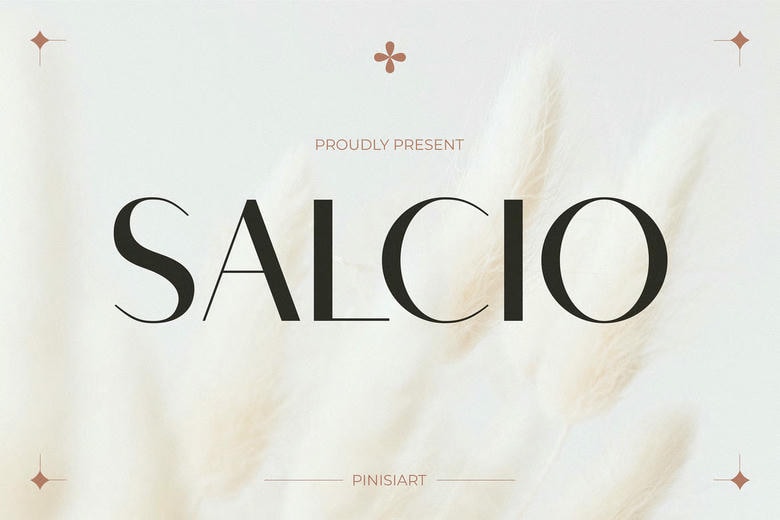
Salcio Font
Salcio Modern Font is a refined contrasted modern luxury typeface that has sophisticated curves, graceful proportions, and soft curves that make it look elegant and sophisticated. With a smooth serif line, it is both traditional and modern in its editorial style and clarity, which makes it the best for fashion, lifestyle, and beauty branding. Having an elegant flow and smooth ends, Salcio is a powerful mix of strength and delicacy, which will be suitable in projects requiring a classic style and a contemporary touch.
Whether it is editorial magazines or Instagram posts, Salcio captivates and is not too flashy. Its flexible nature has seen it used in brand identities, packaging, fashion campaigns, luxury product labels and wedding stationery and in high-end digital content. Salcio is the right typeface to designers who need to be sure of communicating trust, class and modern elegance.
Salcio Modern Sans Serif Font